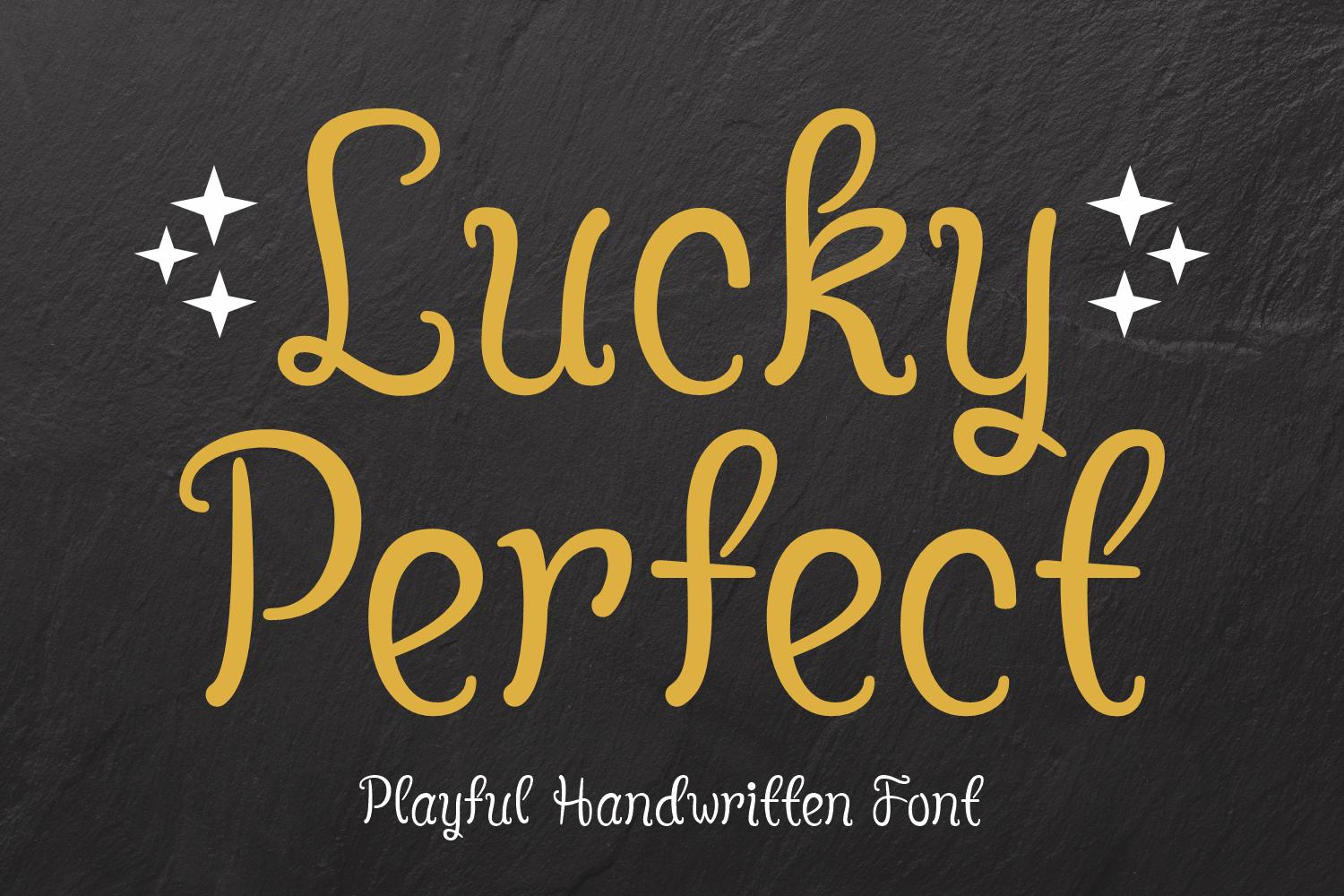
Lucky Perfect Font Description
Lucky Perfect is a playful and delicate script font. Fall for its ravishing style and use it to create gorgeous wedding invitations, beautiful stationary art, eye-catching social media posts, and much more!